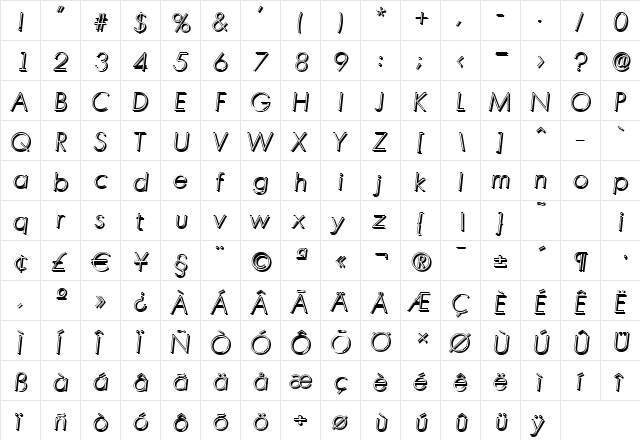
IvanBeckerShadow-Xlight Italic Font Preview
Design Context for IvanBeckerShadow-Xlight Typeface
IvanBeckerShadow-Xlight brings ornamental detail and strong personality to headlines and identities, where visual impact matters more than quiet functionality. The dynamic lean of this cut emphasises speed and emphasis in any layout. Its slender proportions lend an understated elegance to any composition.
Font Pairing: Pair with a clean neutral sans-serif for body copy to let IvanBeckerShadow-Xlight's character lead without overwhelming the composition.
Pro Tip: Treat IvanBeckerShadow-Xlight as the centrepiece of your typographic hierarchy. One strong heading set in a decorative face can carry an entire layout.